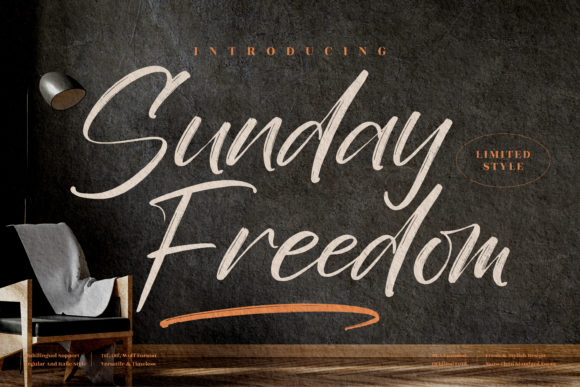
Meet Sunday Freedom, the enchanting script font that radiates grace and refinement, meticulously designed by Perspectype. Step into a world of elegance and let your imagination soar as you explore the endless possibilities this font presents.
With its flowing lines and graceful curves, Sunday Freedom captures the essence of handwritten artistry, evoking a touch of nostalgia and a sense of timeless beauty. Whether you seek to create captivating logos, personalized invitations, or heartfelt messages, this font will effortlessly elevate your designs and leave a lasting impression.
As a script font, Sunday Freedom exudes a natural and organic feel, making it the perfect choice for adding a touch of warmth and charm to your digital creations. It seamlessly blends the charm of handwritten notes with the precision of digital typography, creating a harmonious balance that is both inviting and visually appealing.
Embark on a creative journey with Sunday Freedom, where your words are transformed into works of art. Experience the joy of crafting logos that exude elegance and sophistication, invitations that speak of heartfelt emotions, and social media posts that radiate with personality. Whether you're a seasoned designer or just starting out, this font will unleash your creativity and help you create designs that resonate with your audience.
Join the growing community of designers and creatives who have discovered the magic of Sunday Freedom. Embrace the beauty of handwritten artistry and let your designs shine with grace and elegance. Dive into the world of Sunday Freedom today and unlock the potential for extraordinary creations.